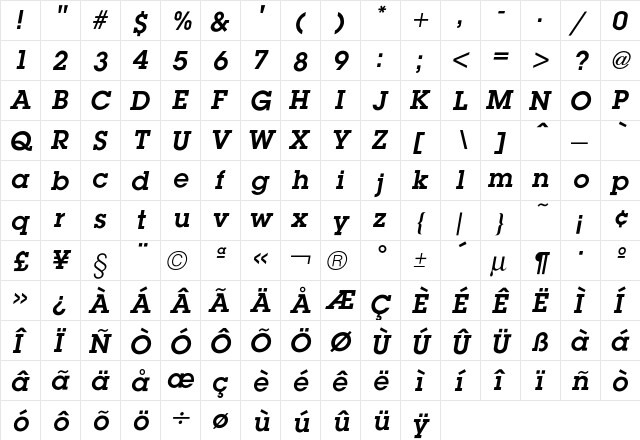
Lubalin DemiOblique
Design Context for Lubalin Typeface
Lubalin is a composed and adaptable typeface that performs quietly and consistently across a wide range of design contexts. The dynamic lean of this cut emphasises speed and emphasis in any layout.
Pro Tip: Try Lubalin for annotation and caption copy alongside an upright companion — the contrast in angle creates a dynamic but ordered typographic system.